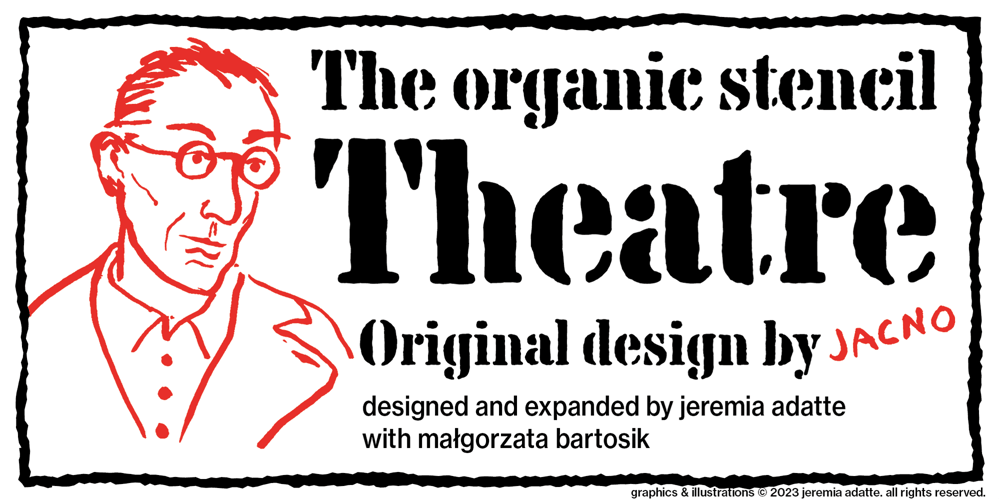
Theatre
Theatre font
Theatre Font Family was designed by Jeremia Adatte, Marcel Jacno, Malgorzata Bartosik and published by Jeremia Adatte. Theatre contains 1 styles and family package options. Display typeface originally created by French graphic designer Marcel Jacno in 1950. Digitised, designed and expanded by Jeremia Adatte with Małgorzata Bartosik from original source material and typeface specimens. THEATRE is inspired by stencil letters found on cargo warehouse wooden crates. “With this unexpectedly-shaped alphabet, I wanted the words to take center stage and create an image in the printed matter” said Mr. Jacno. THEATRE has a second version of each of its letters, painted by hand by Jeremia Adatte and meticulously vectorised and implemented in the font to create words with a hand-made and random effect with no two letters alike, thanks to an opentype feature (enable CALT feature in your favourite design program). Carefully designed ultra detailed letters, for ultra large headlines use without the cheap made-on-a-computer look, but painted-by-hand look, just as it was originally made. THEATRE has more than 50’000 kerning pairs and speaks more than 80 languages. Use THEATRE in your packaging design, like roasted coffee, natural wine or craft beer labels, film or cultural posters and anything you like that needs a unique graphic design voice.